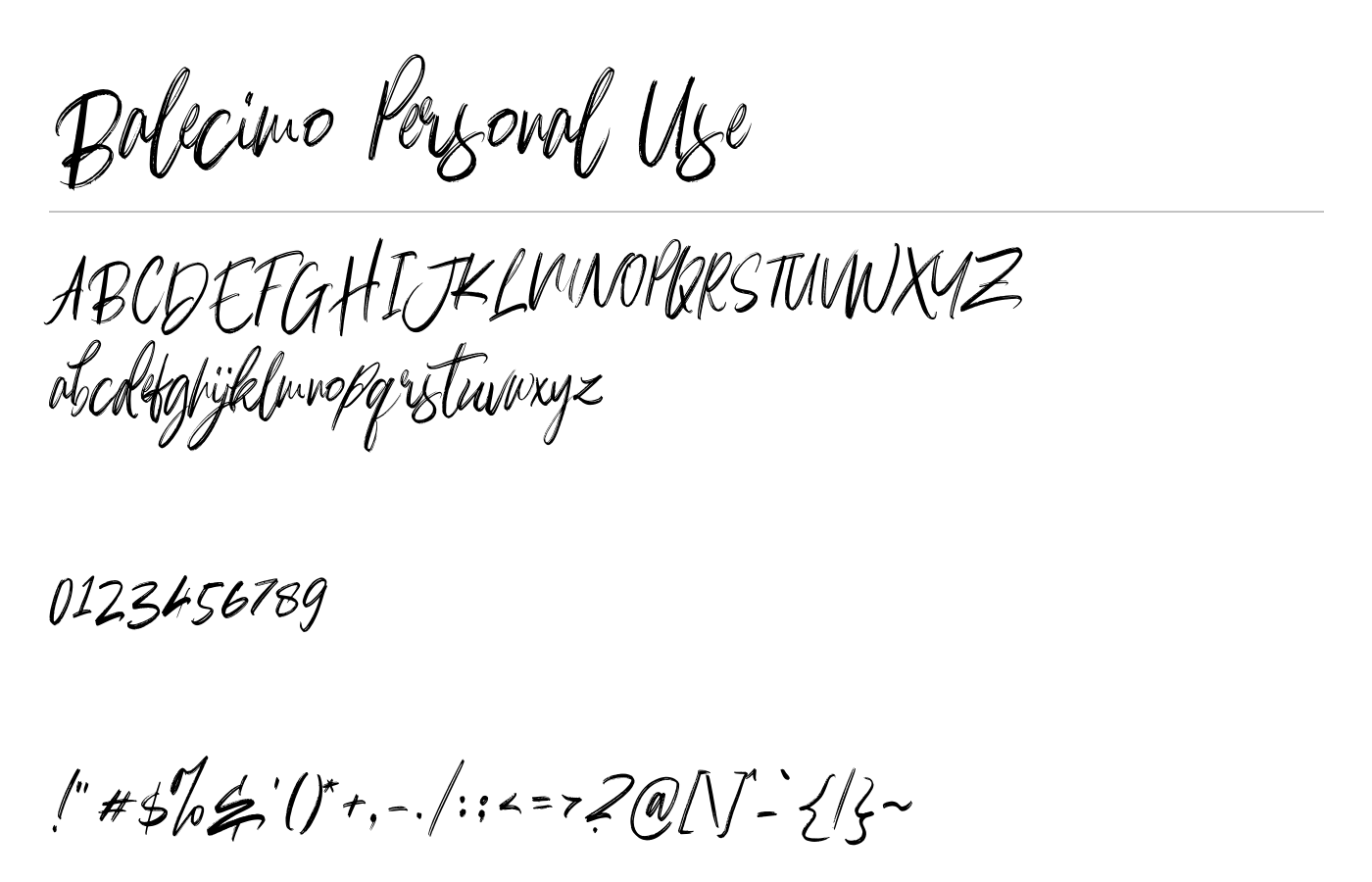
Balecimo Personal Use is a lively, handwritten script font with a casual and slightly rough texture that adds an authentic personal touch. Its tall, narrow letterforms and varying stroke thickness give it an energetic and expressive feel, making it ideal for creative projects, informal branding, and artistic invitations where a spontaneous, friendly mood is desired. This font works best in headlines, logos, or any design that benefits from a hand-crafted, dynamic style.
Balecimo Personal Use Font
About Balecimo Personal Use Font
| Font family | Balecimo Personal Use Font |